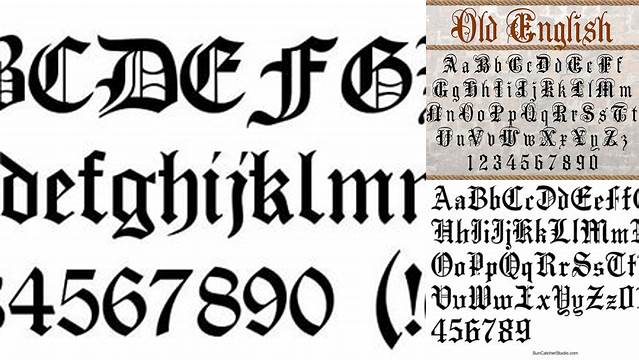
Hey guys! Are you fascinated by the Gothic script? Do you love the intricate and historical feel of Old English fonts? If you're nodding along, you're in the right place! Gothic Old English fonts are more than just typefaces; they're a journey back in time, echoing the grandeur of medieval manuscripts and the elegance of traditional calligraphy. These fonts, characterized by their bold strokes, ornate details, and dramatic flair, have a unique way of capturing attention and adding a touch of historical sophistication to any project. Whether you're working on a creative design, a branding project, or simply want to add some flair to your documents, Gothic Old English fonts can be your best friend.
In this article, we'll dive deep into the world of Gothic Old English fonts, exploring their rich history, diverse applications, and where you can find them for free. We'll also discuss how to use these fonts effectively to ensure your projects truly shine. So, grab your virtual quill and parchment, and let's embark on this fascinating typographic adventure together!
The History and Significance of Gothic Old English Fonts
To truly appreciate the beauty and impact of Gothic Old English fonts, it's essential to understand their history and cultural significance. The story begins in the medieval era, where these fonts emerged as a dominant script in Europe. The Gothic script, also known as Blackletter, arose from the Carolingian minuscule in the 12th century and flourished through the Middle Ages. Its rise coincided with the Gothic architectural style, and just like the towering cathedrals of the time, Gothic fonts exude a sense of grandeur and timelessness. Think of the elaborate stained glass windows and the intricate stone carvings; Gothic fonts carry that same artistic weight.
The term “Old English” further specifies a particular style within the Gothic family. This style is heavily influenced by the insular script traditions of England and often features unique letterforms and ligatures. This specific style was prominently used in important documents, religious texts, and literary works, making it a symbol of authority, tradition, and scholarly prestige. Imagine the weighty tomes of ancient libraries and the solemn declarations penned in these very scripts. The significance of these fonts isn't just aesthetic; it's deeply rooted in history and culture. Using an Old English font can instantly imbue your project with a sense of history and gravitas, evoking the spirit of a bygone era. Whether you’re creating a logo for a historical society, designing a book cover that needs to feel ancient, or even crafting an invitation with a touch of classic elegance, understanding this history helps you leverage the font's power effectively. For instance, if you're designing for a modern fantasy novel, using a Gothic Old English font can evoke the medieval-inspired settings and themes, drawing readers into the world you’re creating. In short, these fonts are not just about looking good; they're about telling a story and connecting with a rich cultural heritage.
How to Effectively Use Gothic Old English Fonts
So, you've found some amazing Gothic Old English fonts – awesome! But now comes the crucial part: using them effectively. Gothic Old English fonts, with their elaborate and decorative nature, can add a touch of elegance and history to your designs. However, they can also be tricky to work with if not handled carefully. Let's dive into some tips and best practices to ensure you’re making the most of these unique typefaces.
One of the most important things to consider when using Gothic Old English fonts is readability. These fonts are known for their intricate letterforms, which can sometimes make them difficult to read, especially in large blocks of text. Therefore, it's generally best to reserve them for headings, titles, logos, or short phrases where their unique style can shine without sacrificing clarity. Imagine trying to read an entire novel written in Gothic script – it would be quite the challenge! Instead, use them to create impactful headings or to add a decorative touch to specific elements of your design. For body text, opt for cleaner, more legible fonts that complement the Gothic style, such as a classic serif or a simple sans-serif font. This contrast can create a visually appealing and balanced design.
Pairing Gothic Old English fonts with the right complementary typefaces is another key aspect of effective usage. Since Gothic fonts are quite bold and decorative, they work best when paired with simpler fonts that don’t compete for attention. Think of it like pairing a statement necklace with a minimalist outfit – you want the necklace to stand out, but you don’t want it to clash with the rest of your look. Similarly, a clean sans-serif font like Helvetica or Arial can provide a modern contrast to the traditional Gothic style, while a classic serif font like Times New Roman or Garamond can offer a more harmonious and timeless feel. Experiment with different pairings to see what works best for your specific project, and always consider the overall tone and message you want to convey. Remember, typography is a powerful tool for communication, and the right font pairing can make all the difference in creating a cohesive and impactful design. By using these fonts judiciously and pairing them thoughtfully, you can create designs that are both visually stunning and easy to read.
Whether you're designing a logo for a craft brewery, creating invitations for a formal event, or crafting the cover for a fantasy novel, Gothic Old English fonts can add a touch of timeless sophistication. Remember, the key is to use them thoughtfully and strategically, balancing their decorative nature with readability and pairing them with complementary fonts that enhance their impact. As you embark on your design journey, don't hesitate to experiment with different Gothic styles, explore various font pairings, and discover the unique voice that these fonts can bring to your projects. So, go ahead, download those free fonts, and start crafting your next masterpiece with the elegance and grandeur of Gothic Old English! Happy designing, and may your creations always leave a lasting impression!